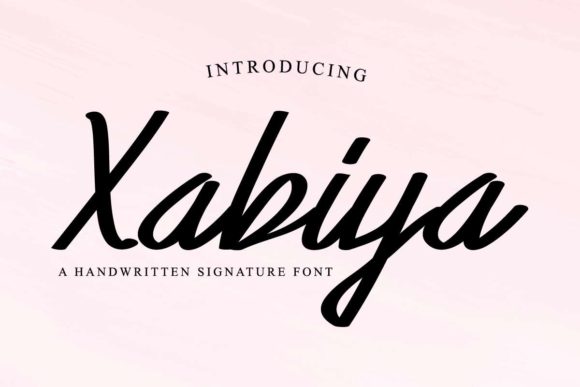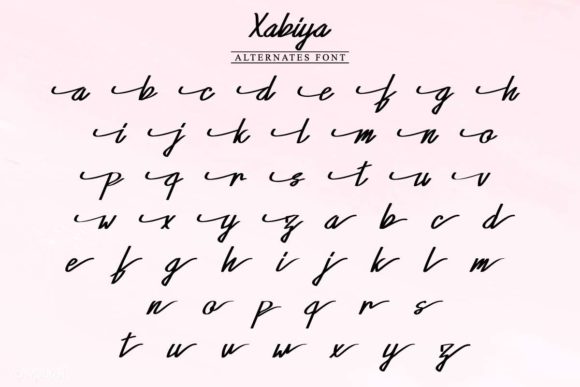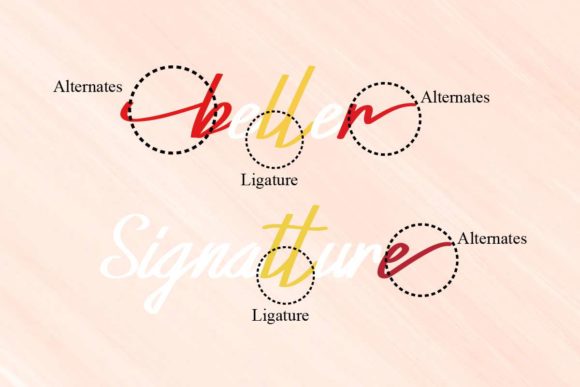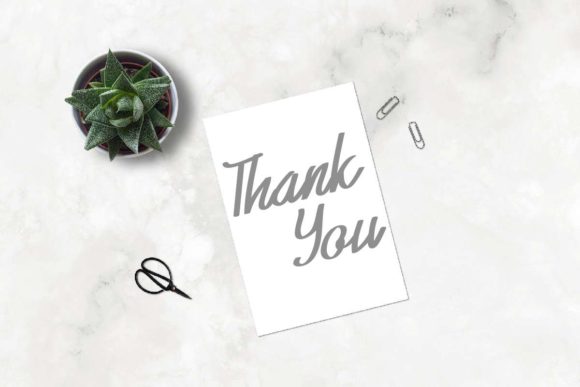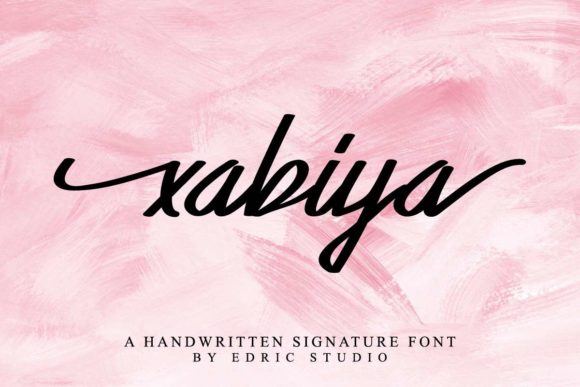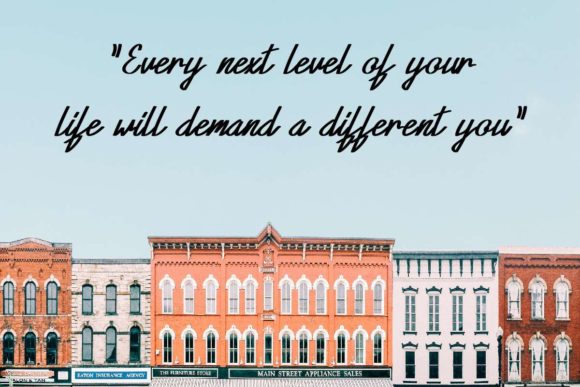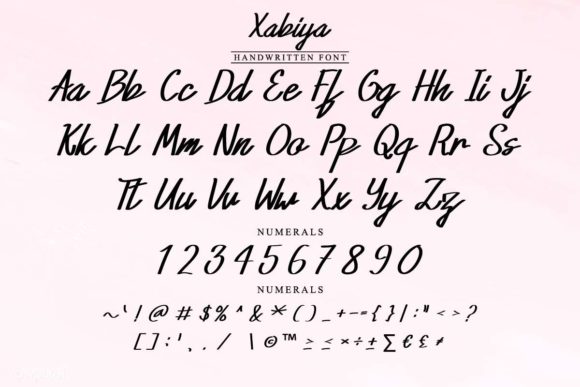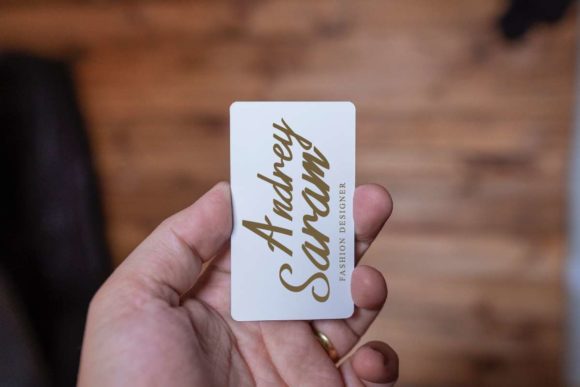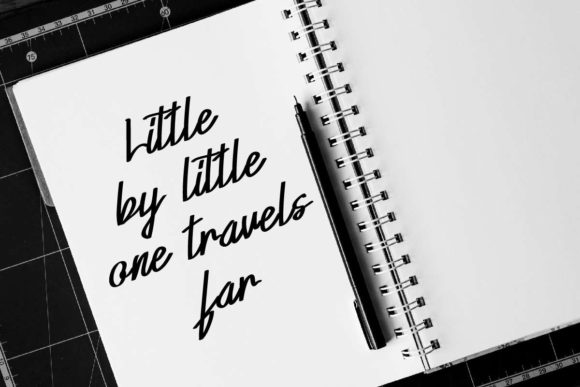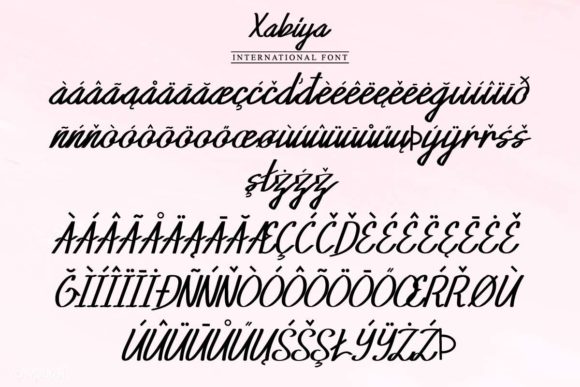
HomeScript FontsXabiya Font Script Fonts Xabiya Font FacebookXPinterestWhatsApp Xabiya Font Poster 2 Xabiya Font Poster 3 Xabiya Font Poster 4 Xabiya Font Poster 5 Xabiya Font Poster 6 Xabiya Font Poster 7 Xabiya Font Poster 8 Xabiya Font Poster 9 Xabiya Font Poster 10 Xabiya Font Poster 11 Xabiya Font Poster 12 Xabiya Font Poster 13 About Xabiya Font Xabiya is a sharp and dynamic script with a straight baseline. Get inspired by its unique charm! DOWNLOAD NOW People also explored Yogurt Font Amidala Font Sweet Christmas Font Caligraphy Font Steelfish Unleaded Hotmild Font Modern Reguler Font Nice Farmhouse Font Bodoni Classic Text 290 0 TagsXabiya Font Previous articleThe Rollings FontNext articleZakilla Font LEAVE A REPLY Cancel reply Comment: Please enter your comment! Name:* Please enter your name here Email:* You have entered an incorrect email address! Please enter your email address here Website: Save my name, email, and website in this browser for the next time I comment. Personal Use Free Archipellago Personal Use Free Read more about this font Monogram Veg Personal Use Free Read more about this font William Personal Use Free Read more about this font Pasile Personal Use Free Read more about this font BLOG Elegant Wedding Invitation Fonts – Handwritten & Script Fonts Elegant Wedding Invitation Fonts Your wedding day is one of the most important moments of your life, and every detail matters—including your invitation design. Our... Modern Sans-Serif Fonts That Brands Love in 2025 Best Fonts for T-Shirt Design – Top 2025 Picks Top 10 Handwritten Fonts That Elevate Your Designs